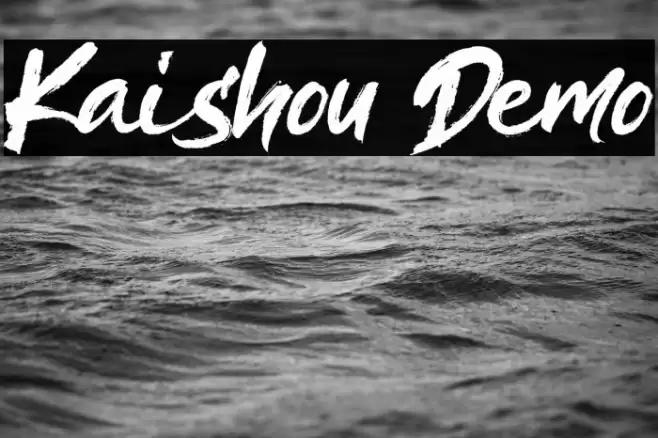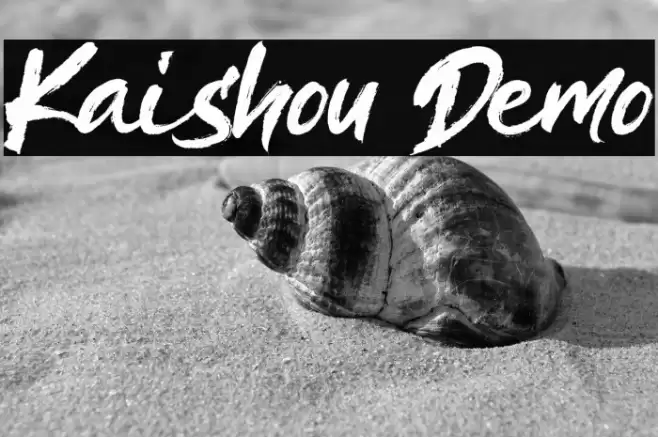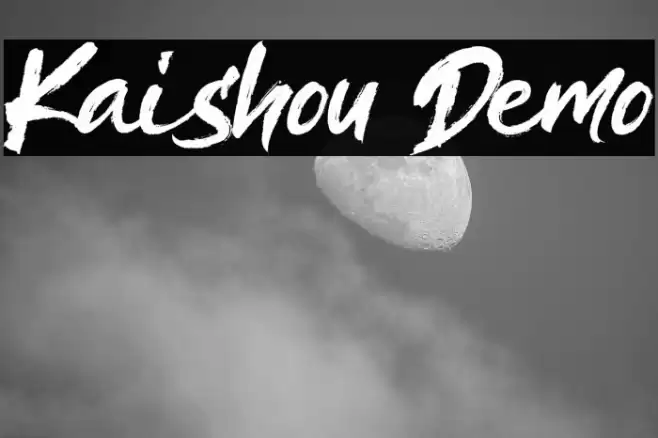
Kaishou Demo Font
Kaishou Demo Description
This font features a bold, expressive brush style with a dynamic and energetic appearance. The strokes are thick and uneven, giving it a hand-painted look that conveys a sense of movement and spontaneity. The uppercase and lowercase letters maintain a consistent style, with some characters exhibiting unique flourishes that add to the overall artistic feel. The numbers and special characters are equally bold and maintain the same brush-like quality, ensuring a cohesive look across all glyphs. This font is ideal for projects that require a strong, artistic touch, such as posters, branding, or any design that aims to capture attention with its bold and creative style.
A bold, brush-style font with an expressive and dynamic appearance from Uncategorized fonts.
- Proposed Projects: Ideal for posters, branding, artistic designs, and any project needing a bold, creative touch.
- Overall Style: Artistic, Expressive